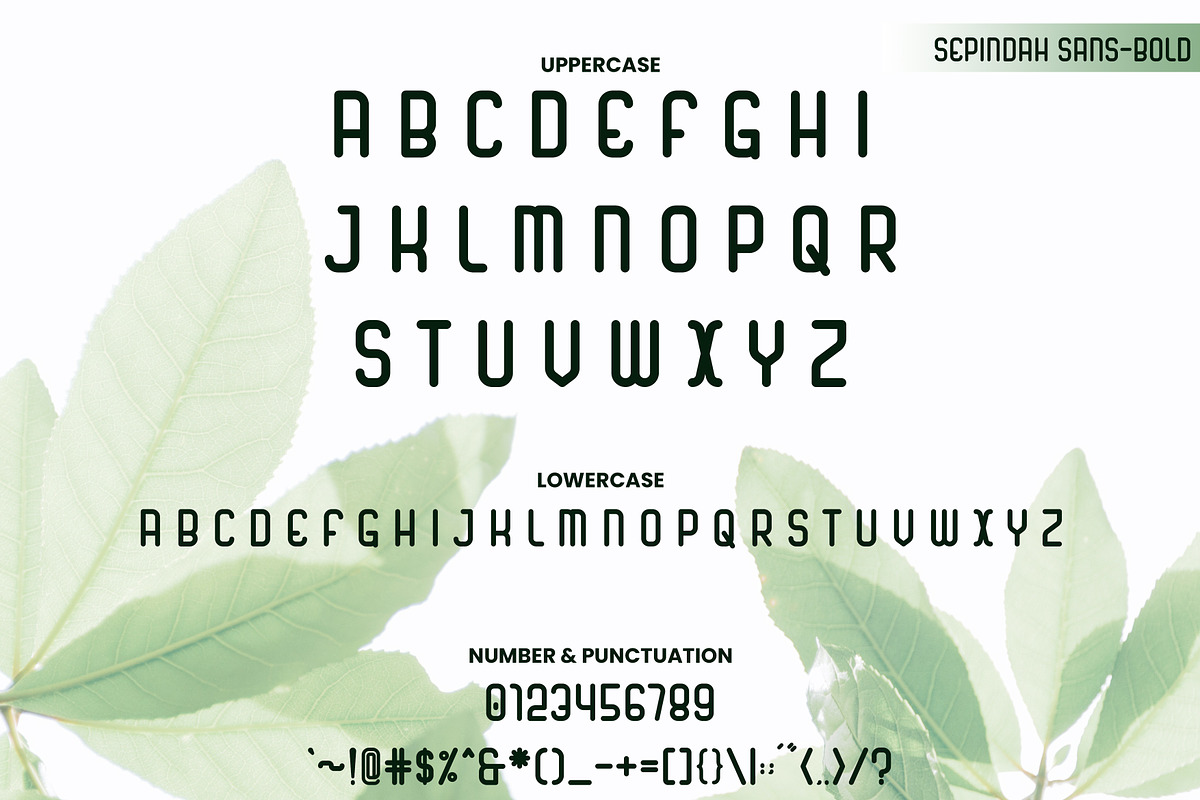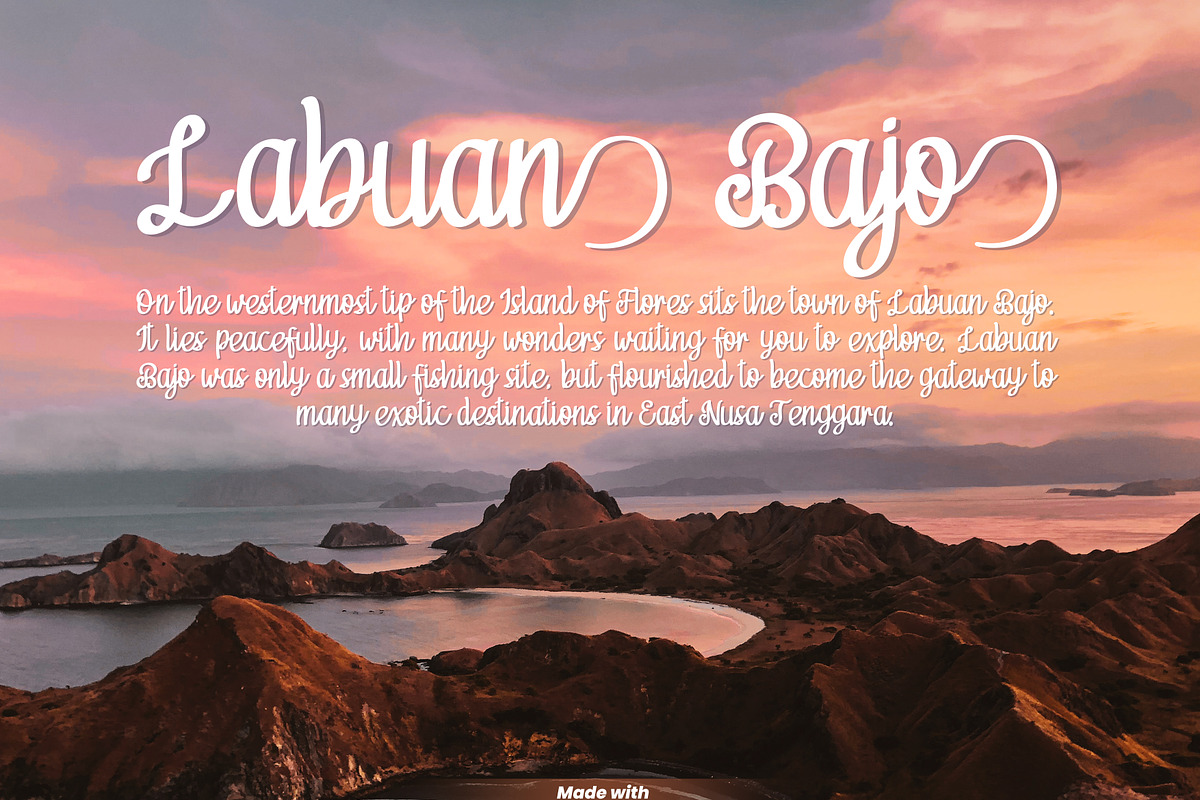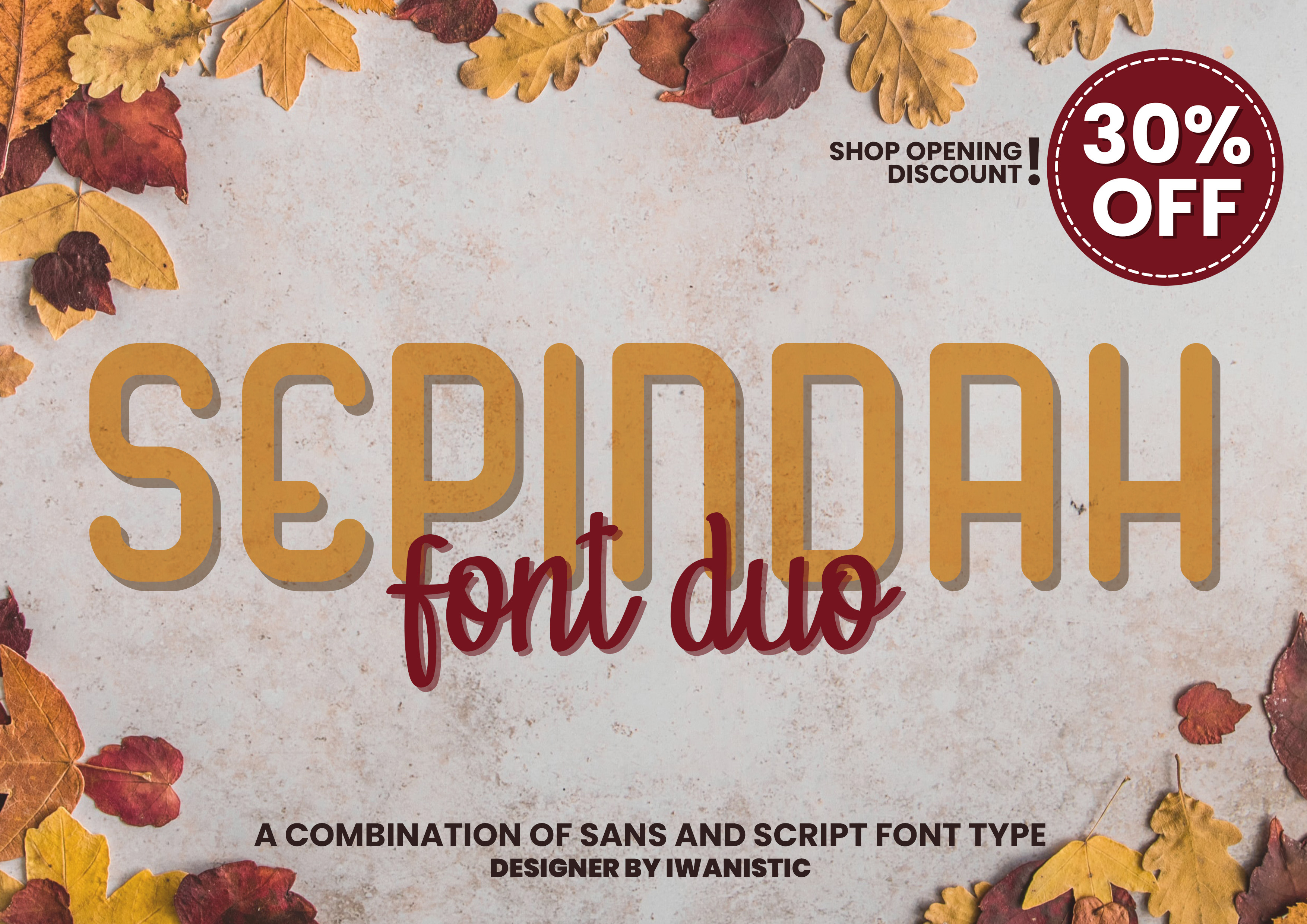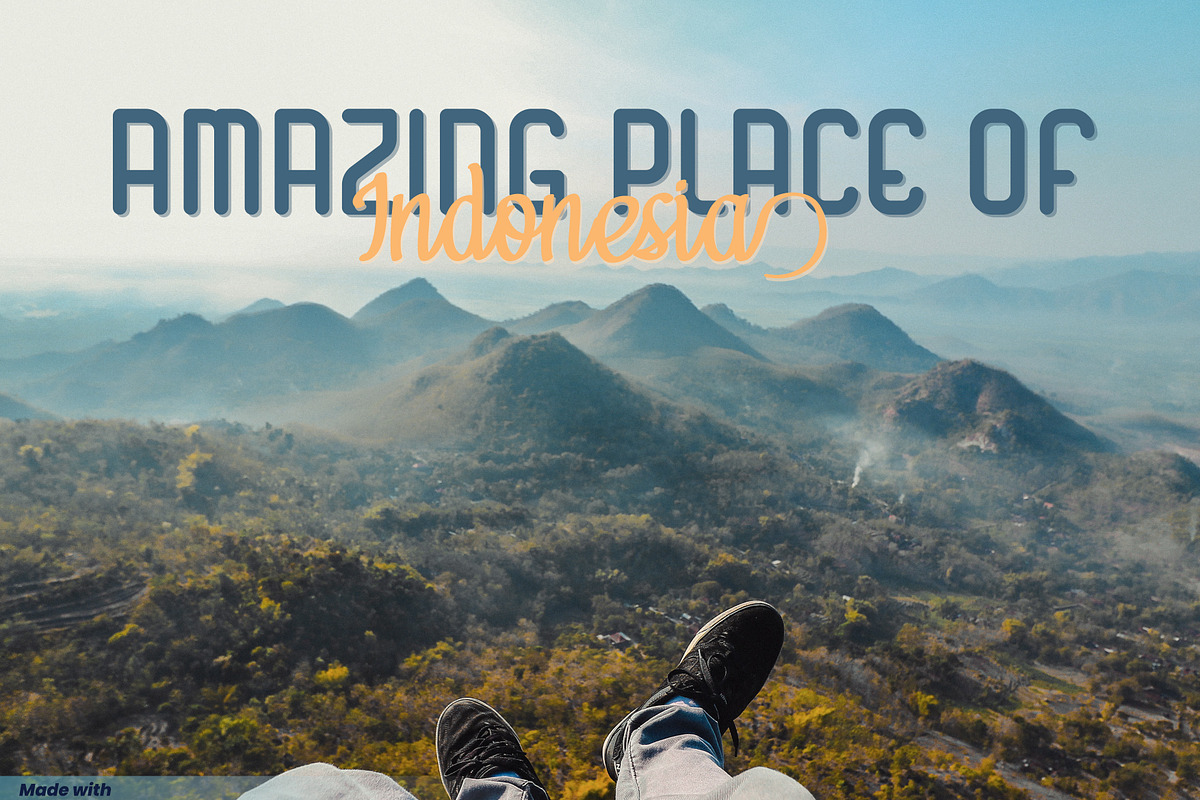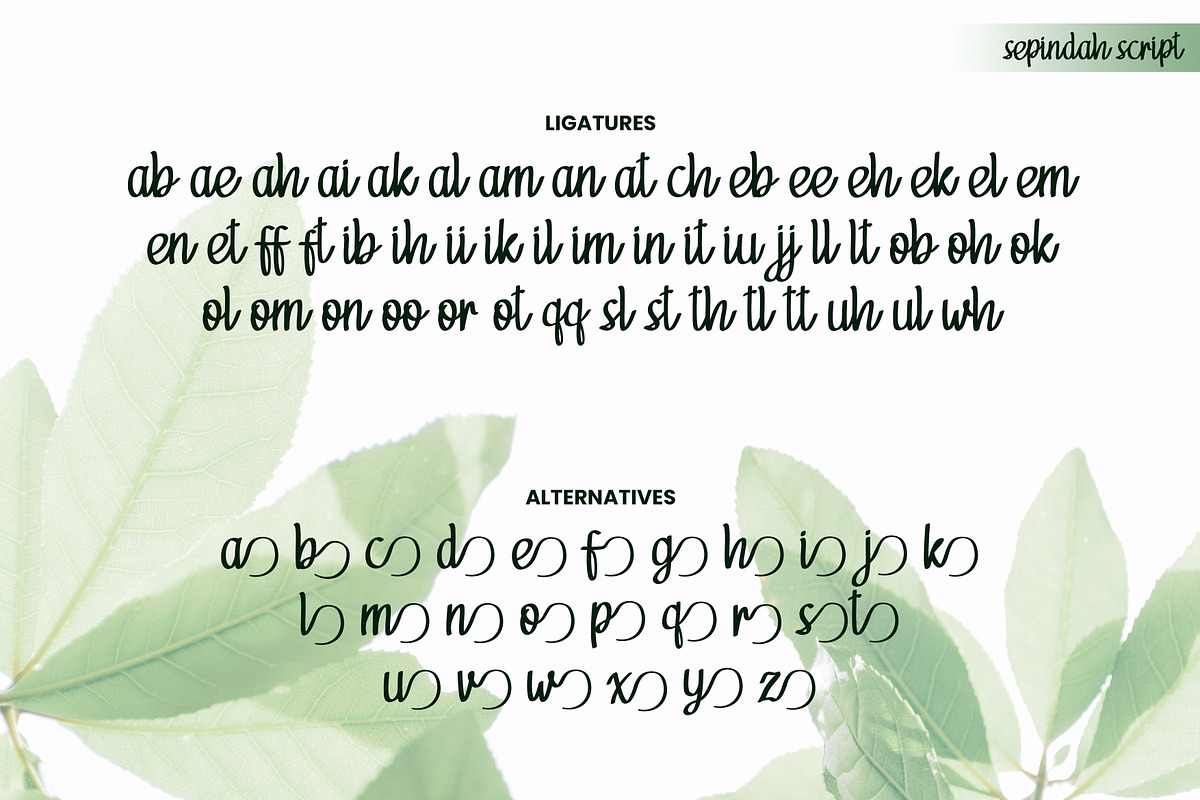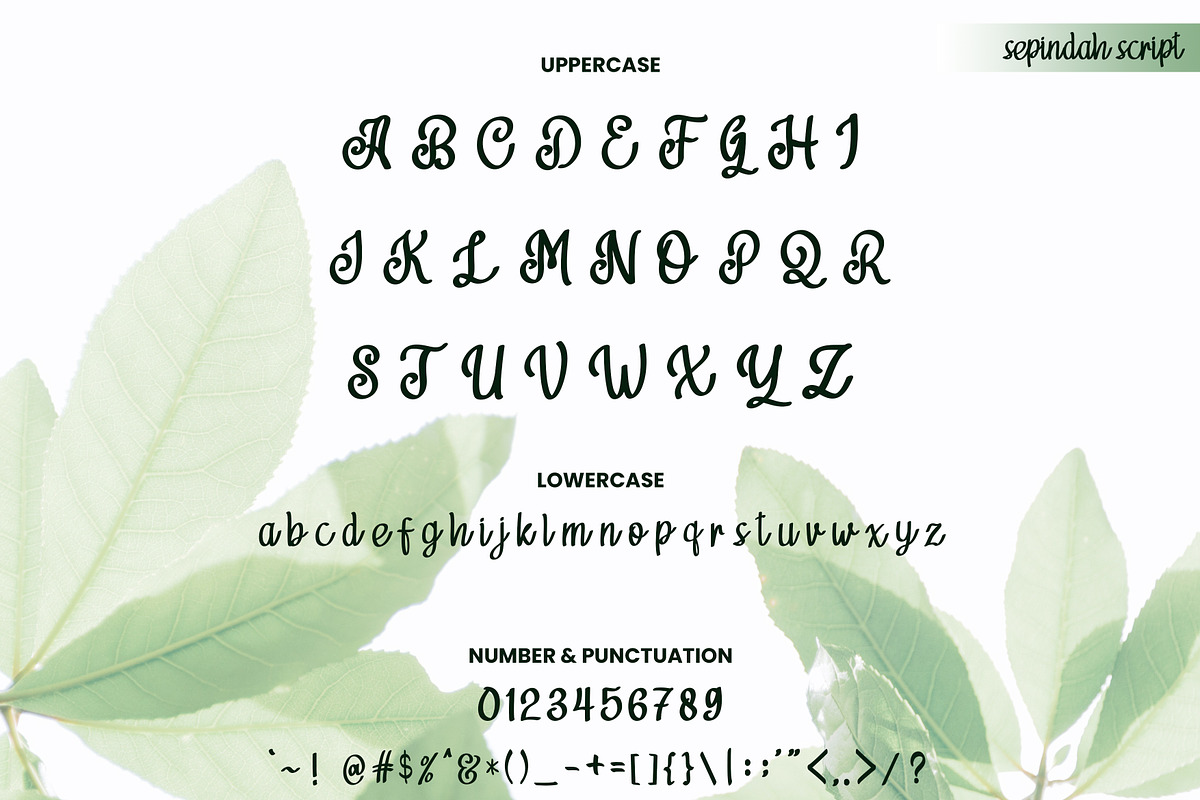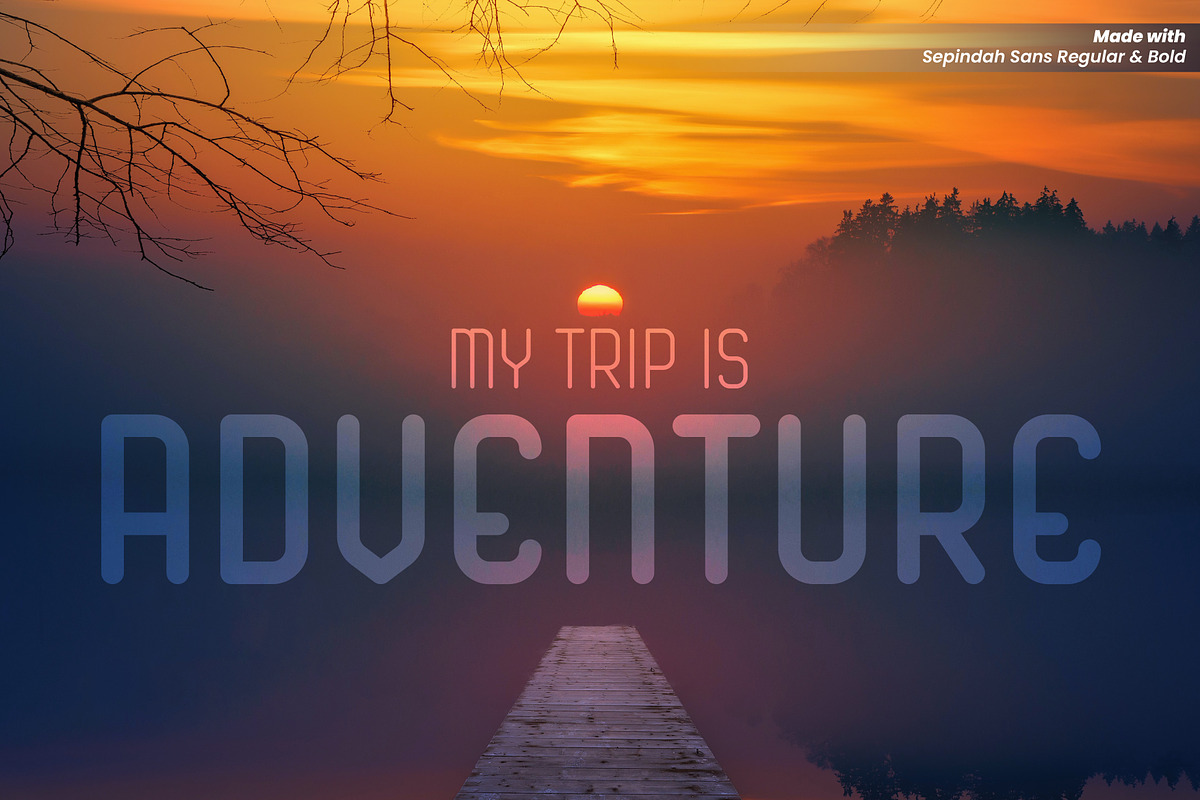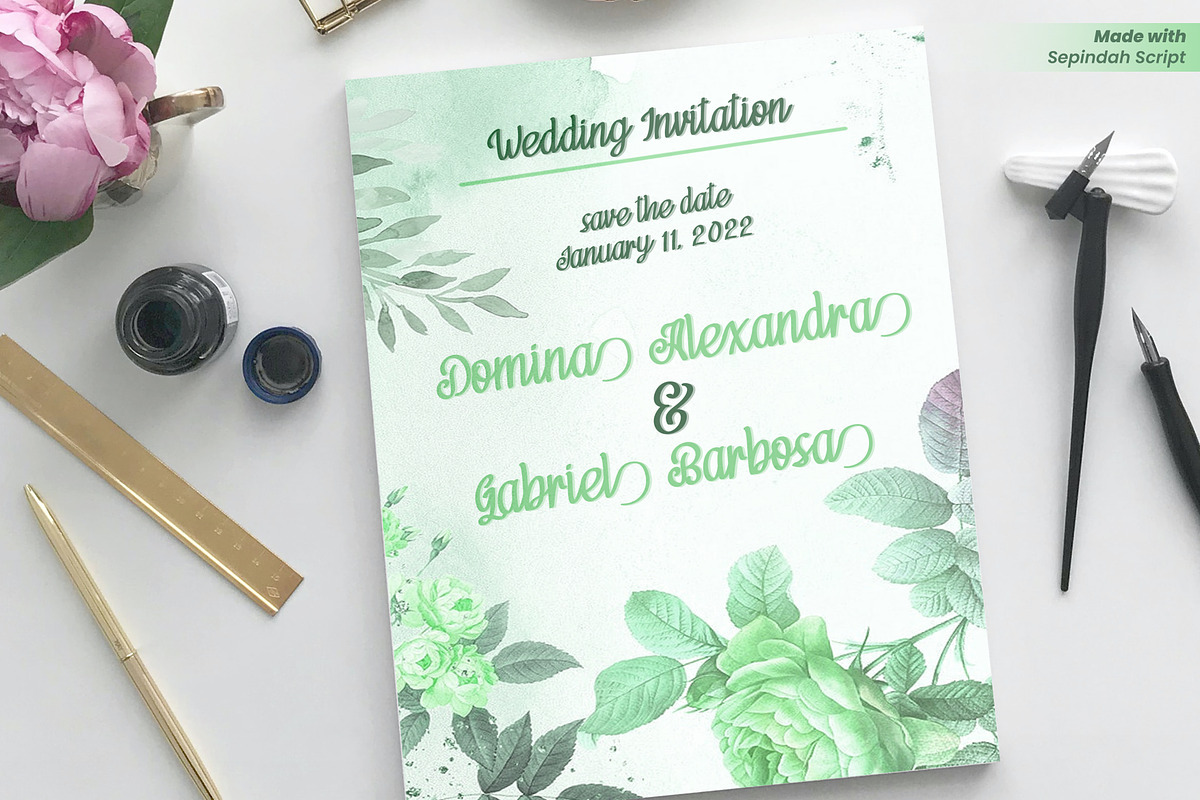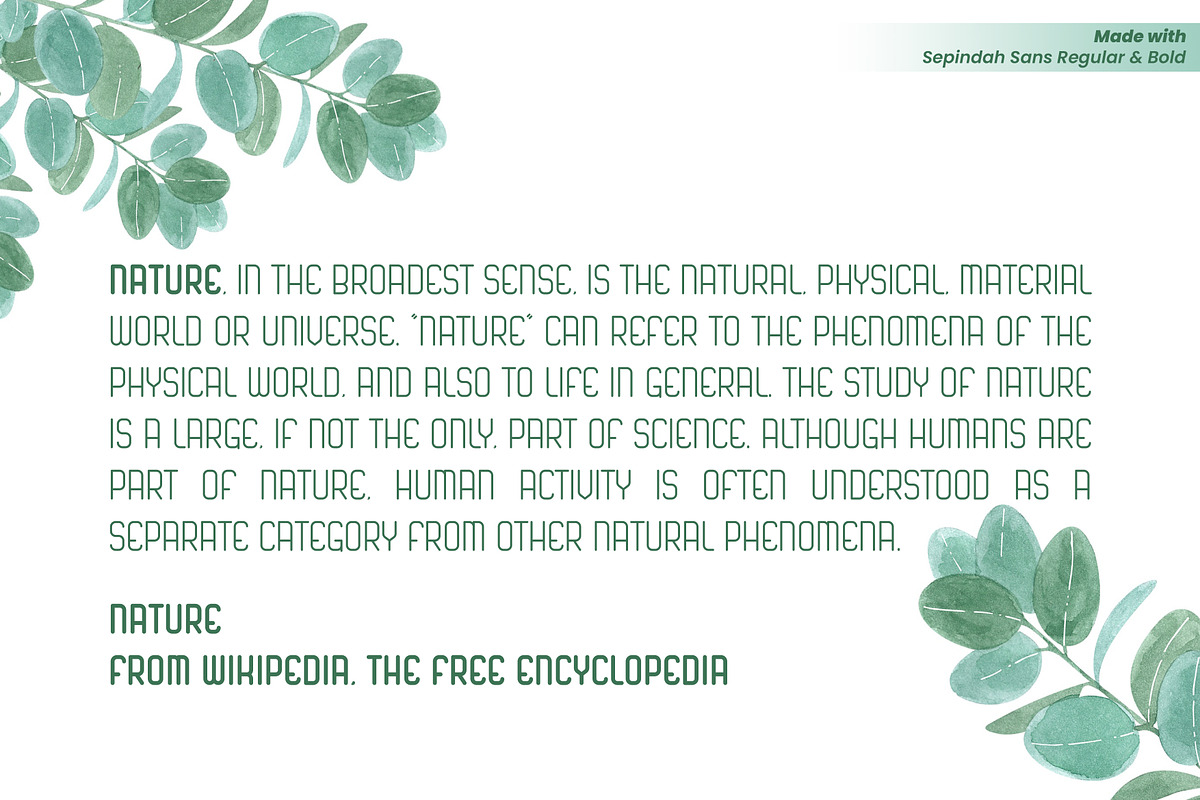
Sepindah Font Duo Sans & Script
Introducing Sepindah Font Duo Sans & Script
Sepindah Font Duo will be perfect for a variety of projects such as logos & branding, invitations, stationery, wedding design, social media posts, advertising, product packaging, product design, labels, photography, watermarks, special events or anything else that requires a combination of handwriting and modern styles.